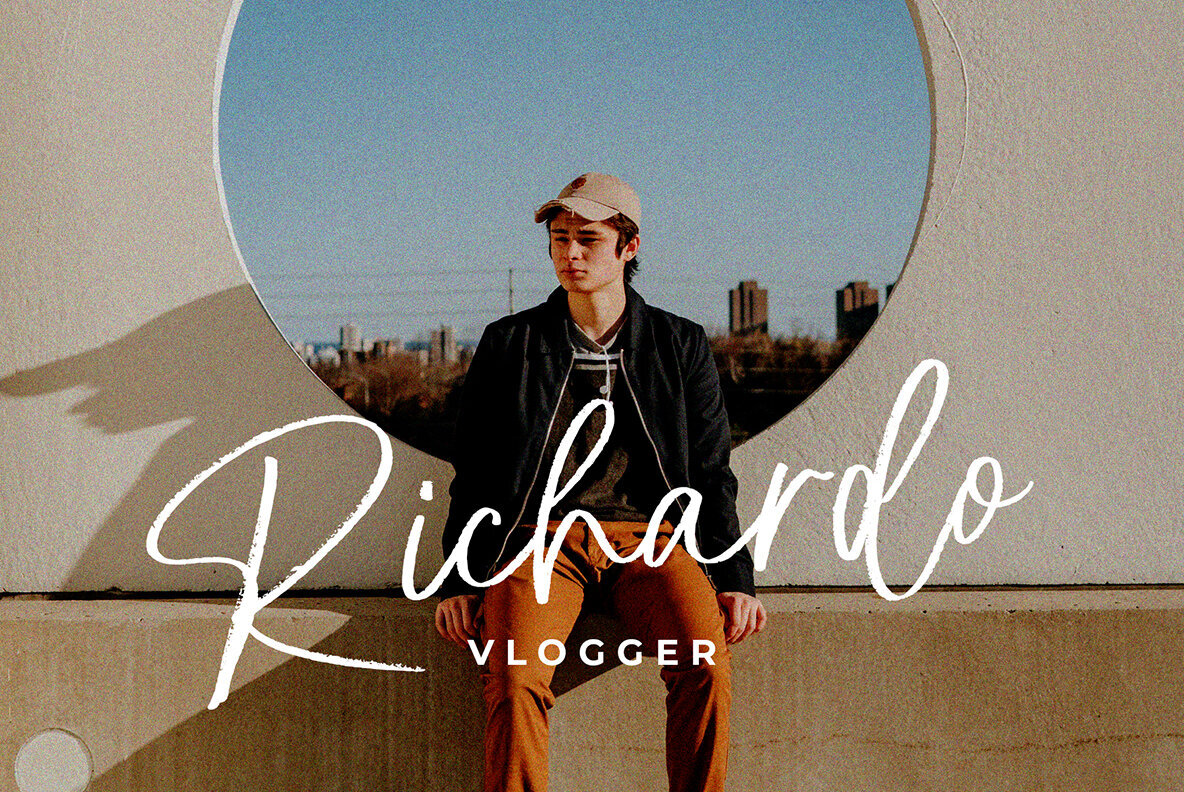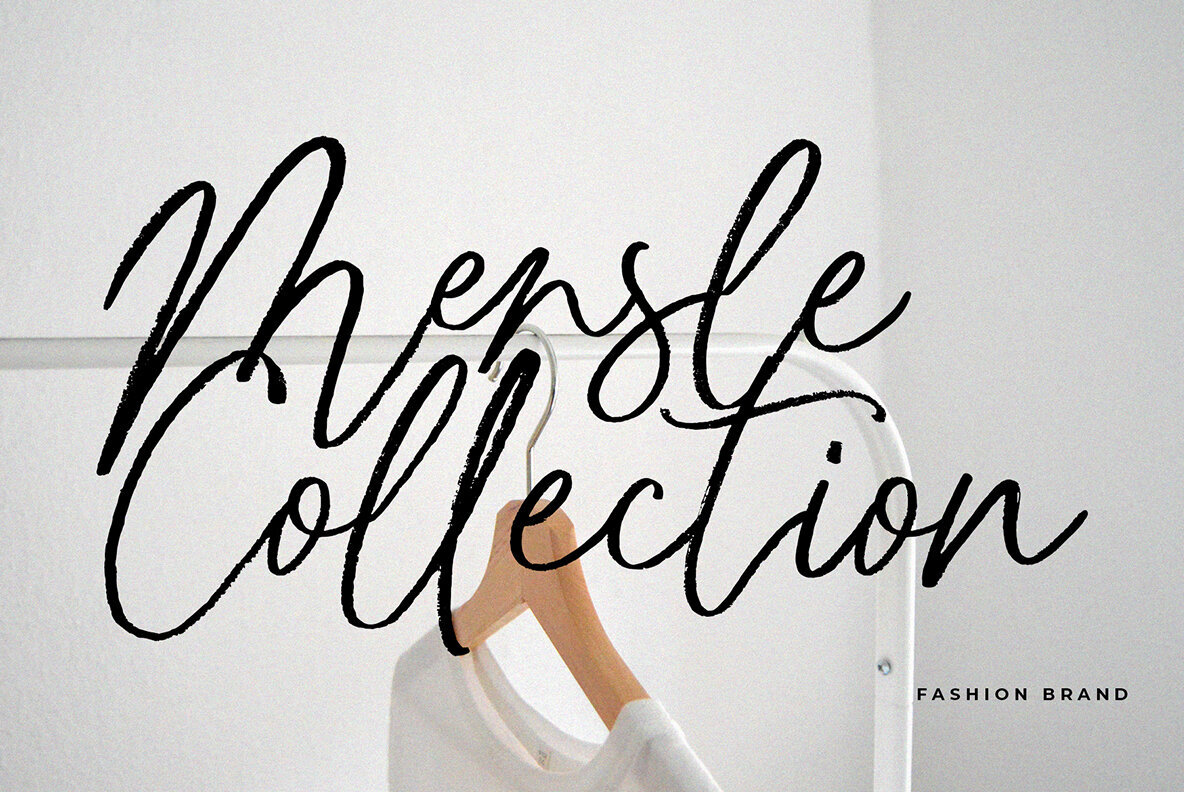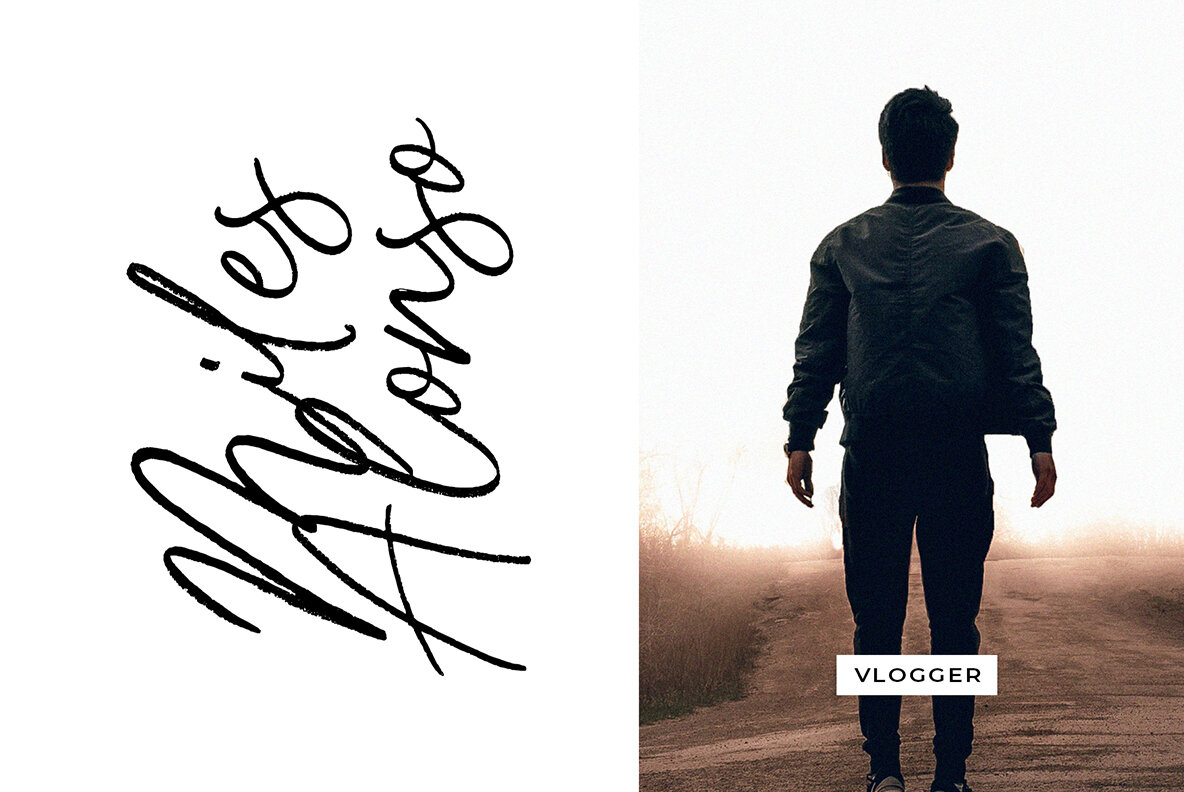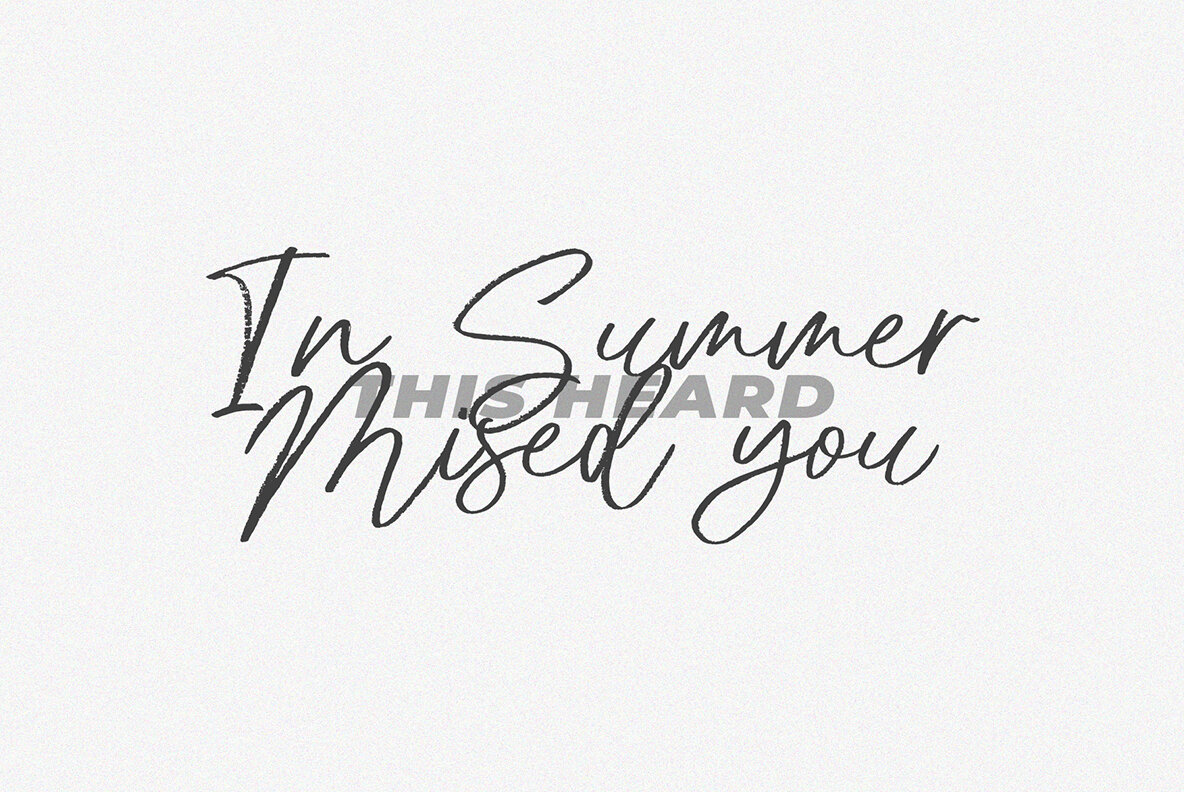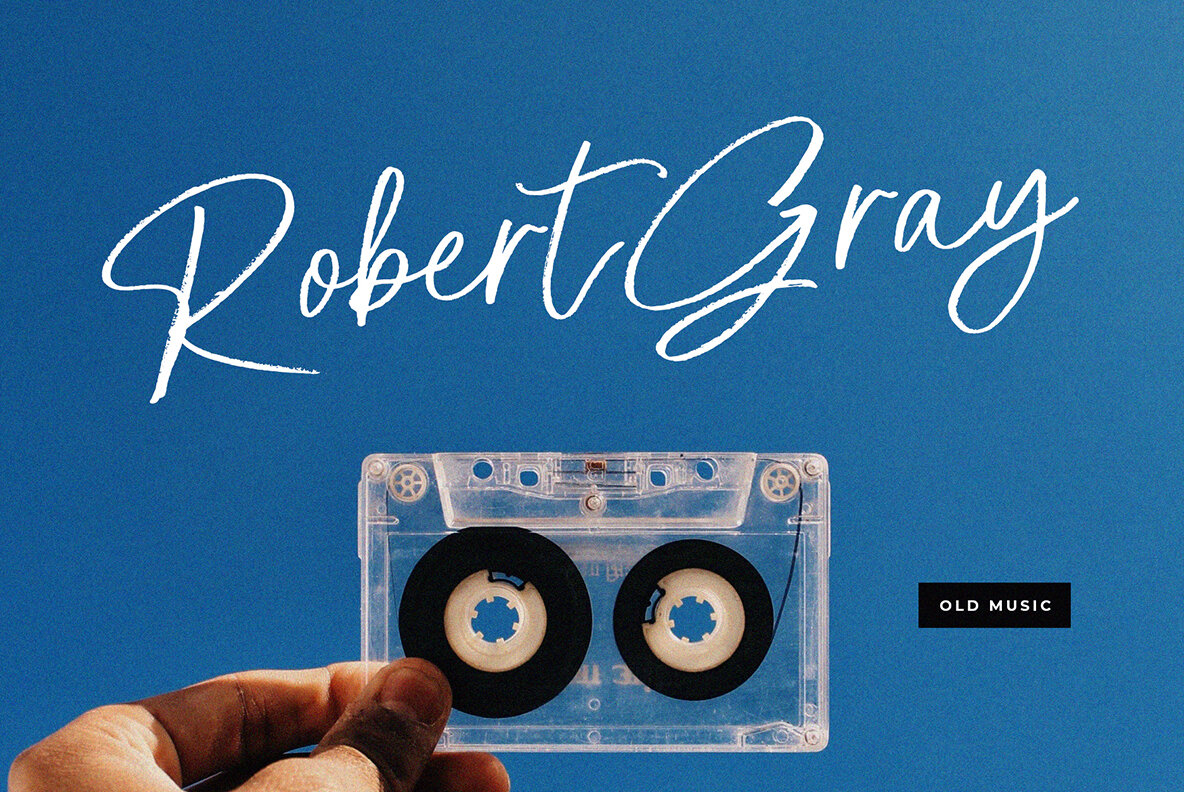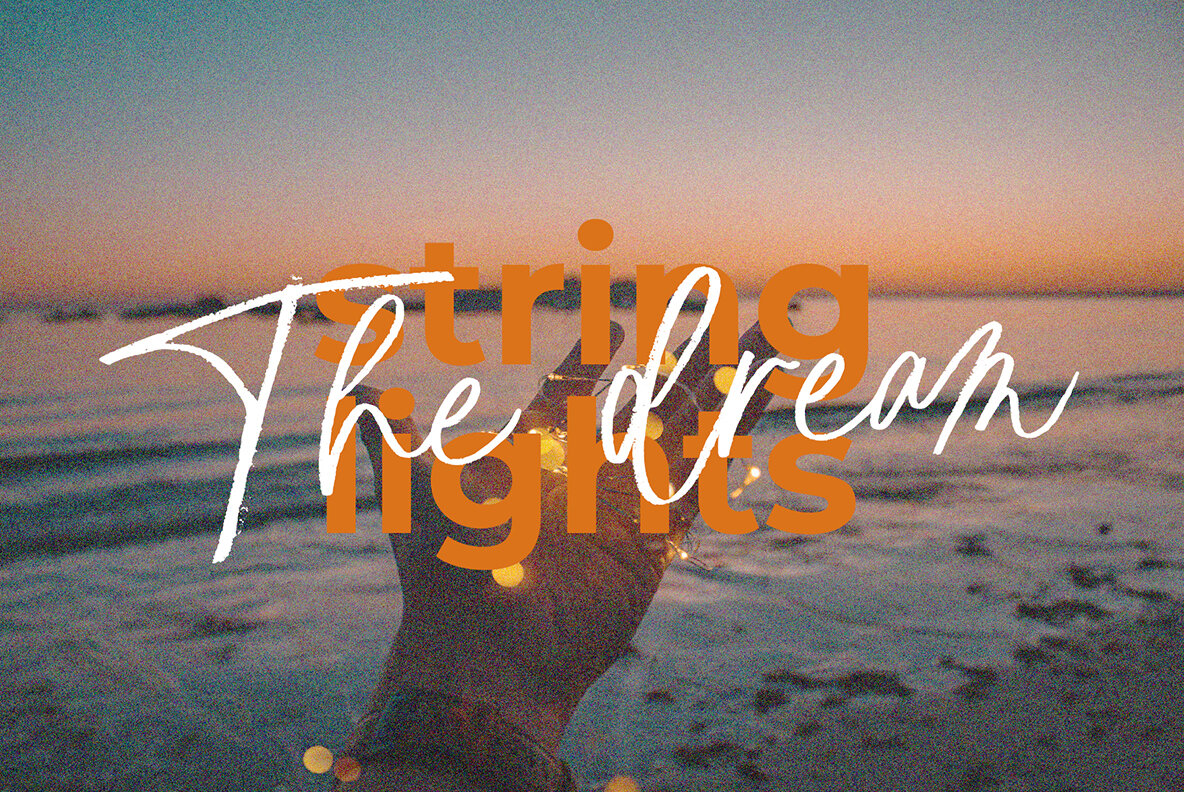
Protan Sheyom Font
Protan Sheyom Regular
Protan Sheyom is a distinct font crafted with a brush pen to capture an authentic, natural texture. This font showcases the unique characteristics of hand-drawn lettering, making it ideal for enhancing a variety of applications such as clothing designs, posters, book titles, stationery, quotes, branding, logos, invitations, greeting cards, t-shirts, and packaging designs.Protan Sheyom: Naturally Textured Brush Font